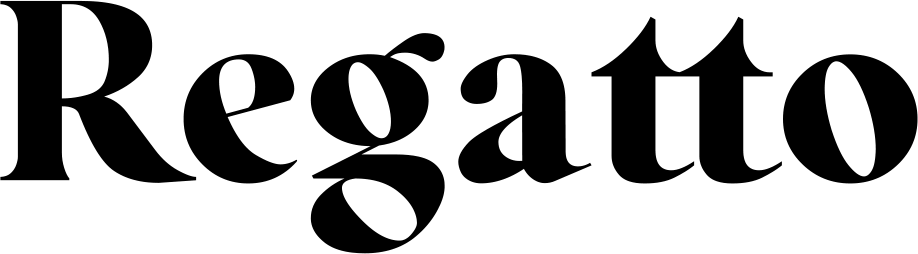
Regatto Font
Lacking a good font would be the main obstacle to creating eye-catching and prestigious content, but a luxury serif font such as Regatto would solve this problem. Its characters are bold and they are easy to read, so, you can include this font in packing, publications, and presentations to convey a sense of professionalism, formality, and confidence.